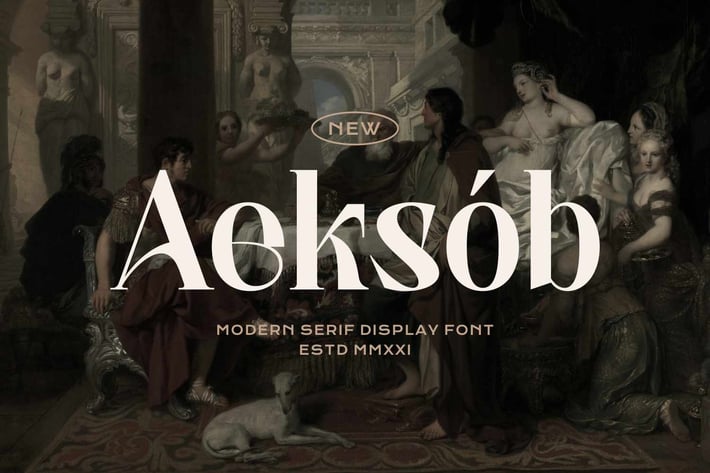
Aeksob - Modern Serif Display Font
Aeksob Serif Display a modern-style serif font with alternatives and ligatures that create stunning logos, quotes, posts, blog posts. branding projects, magazine imagery, wedding invitations, and much more.
Font Features
- Alternatives